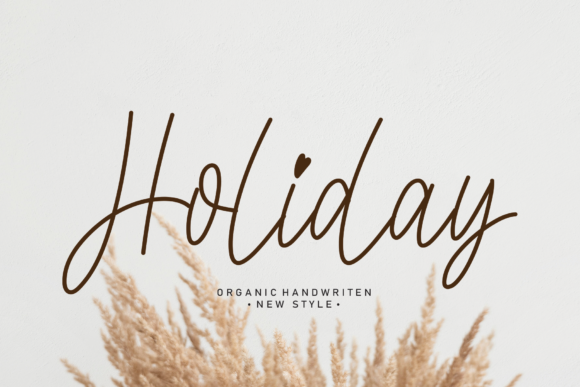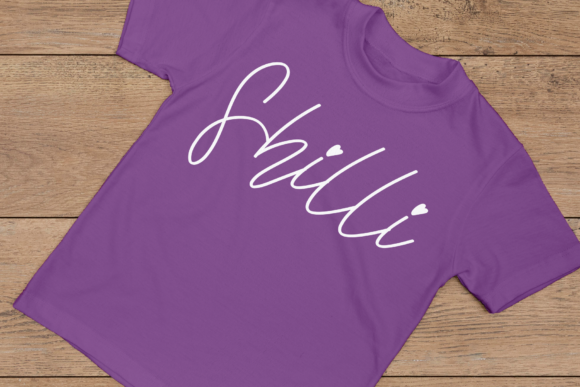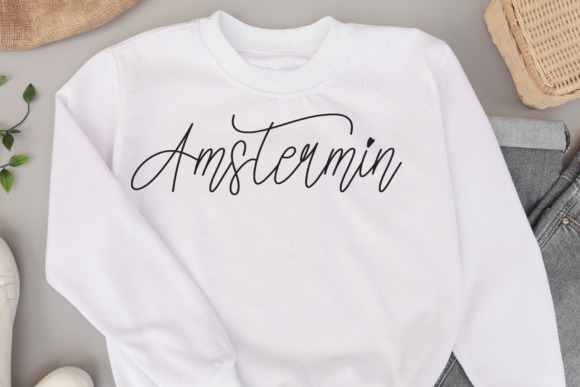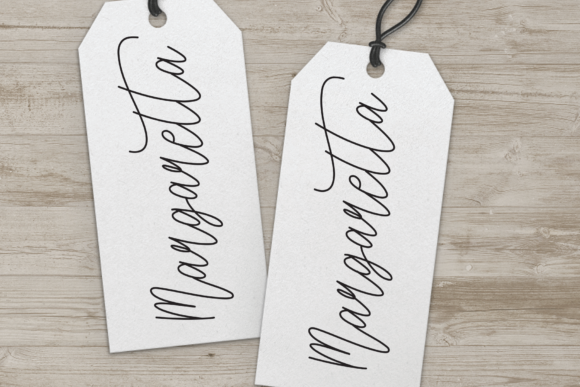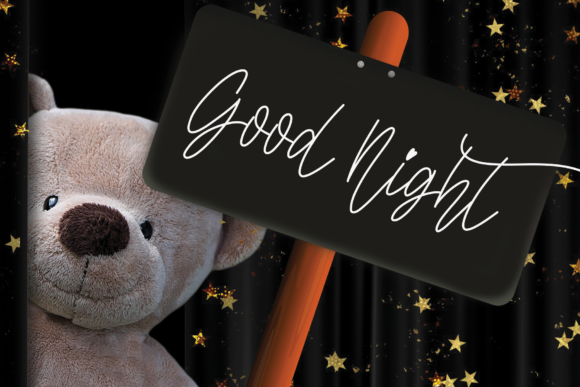
Discover the Magic of the Holiday Font
Have you ever been working on a project and suddenly, the perfect font pops into your mind, elevating your design to a whole new level? It’s like a spark of inspiration that makes everything fall into place. For many designers, this moment is a dream come true.
That’s exactly what the Holiday Font is all about – creating a sense of wonder and magic in your designs. This stylish, asymmetric, and thin lettered script font is a wonderful asset to any font library, perfect for adding a touch of elegance and sophistication to your creations.
Whether you’re working on a festive holiday project, a wedding invitation, or a branding campaign, the Holiday Font has the potential to enhance any design and make it truly unforgettable. With its unique charm and versatility, this font is a valuable addition to any designer’s toolkit.
Holiday Font Key Features
- Unique Characteristics: This font features intricate and ornate designs, with a festive and holiday-themed aesthetic, making it ideal for Christmas and winter-themed designs, invitations, and greeting cards.
- Font Weight: The font comes in various weights, including Light, Regular, Bold, and Heavy, allowing designers to choose the perfect weight for their design needs.
Holiday Font Review
Overall, I think Holiday Font is a unique and eye-catching addition to any design project. ✨ It’s perfect for capturing the festive spirit and adding a touch of magic to your designs.
Here are some things that I think work well:
- Fun and playful characters that are sure to put a smile on your face ✨
- Great for creating a whimsical and festive atmosphere in your designs
- Works well for titles, headings, and short paragraphs of text
However, I do have a few concerns:
- ⚠️ Some of the characters may not be as legible in smaller font sizes
- ⚠️ The font may be a bit too busy or overwhelming for some designs
Overall, I think Holiday Font is a great choice for designers who want to add a touch of whimsy and fun to their projects. Just be mindful of the potential limitations and use it judiciously to avoid overwhelming your audience.
Tips for Getting the Most Out of Holiday Font
Use Holiday Font to add a festive touch to your designs. Try using it for holiday-themed graphics, invitations, and cards.
Holiday Font is perfect for:
- Christmas and New Year’s Eve designs
- Thanksgiving and Halloween graphics
- Valentine’s Day and Easter cards
Alternatives to Holiday Font for Designers
Copperplate is a elegant, cursive script font. It is ideal for use in invitations, greeting cards, and other formal designs where a touch of sophistication is needed. Compared to Holiday Font, Copperplate is more refined and less playful, making it suitable for formal occasions.
Edwardian Script
Edwardian Script is a luxurious, formal script font. It is perfect for use in high-end designs, such as wedding invitations, luxury product labels, and upscale branding. Compared to Holiday Font, Edwardian Script is more dramatic and elegant, making it suitable for high-end applications.
Great Vibes is a beautiful, modern script font. It is ideal for use in creative designs, such as advertising, social media graphics, and packaging. Compared to Holiday Font, Great Vibes is more modern and versatile, making it suitable for a wide range of applications.